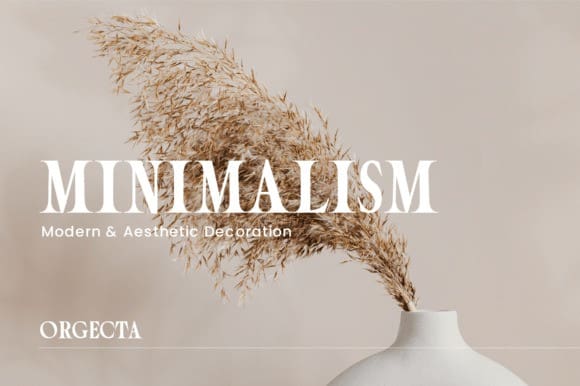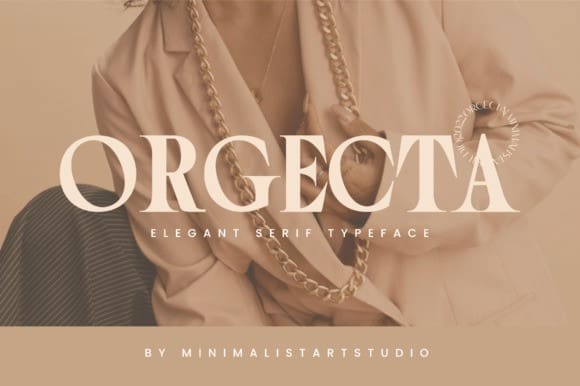
Orgecta Font
Orgecta Font is an extremely elegant, luxurious, and chic serif typeface. The contrast added between the sharp exterior glyph structure and the smooth interior glyph space or emptiness contributes to adding exceptional elegance to the final aspect. It can be used for elegant design themes such as luxurious packaging design, jewelry, fashion house, romantic film titles, luxury goods merchandise, etc.